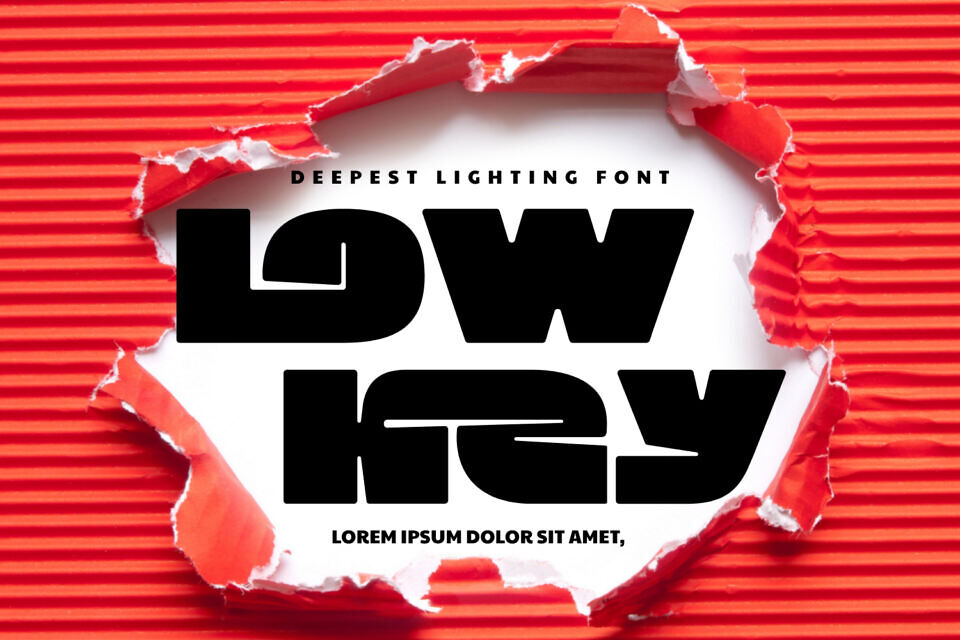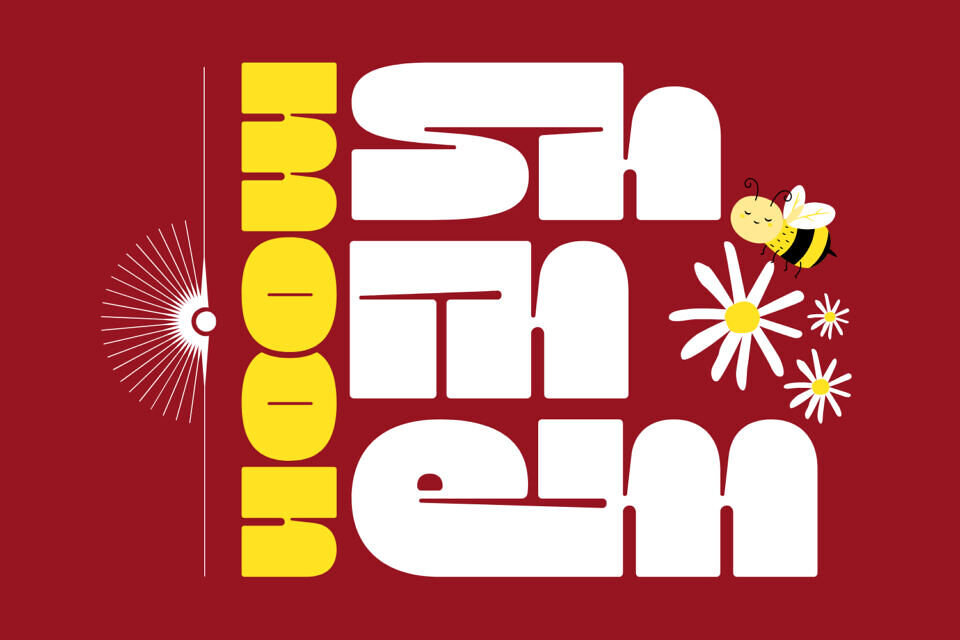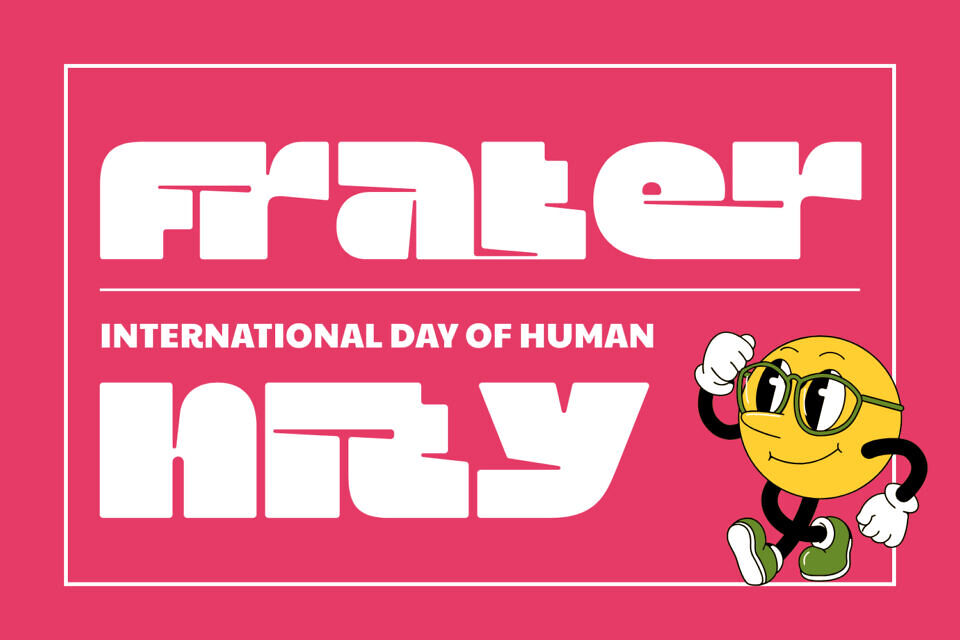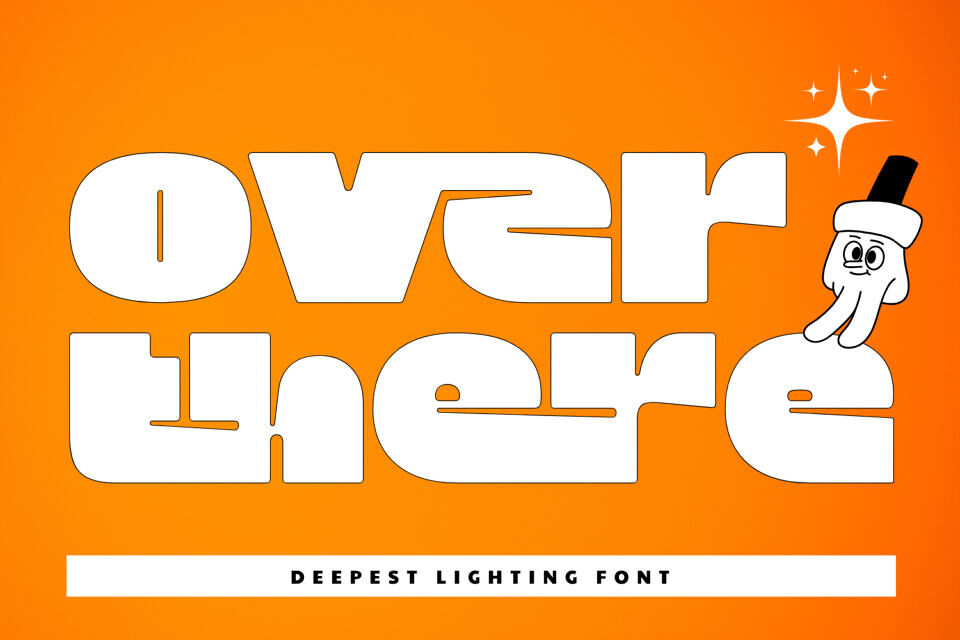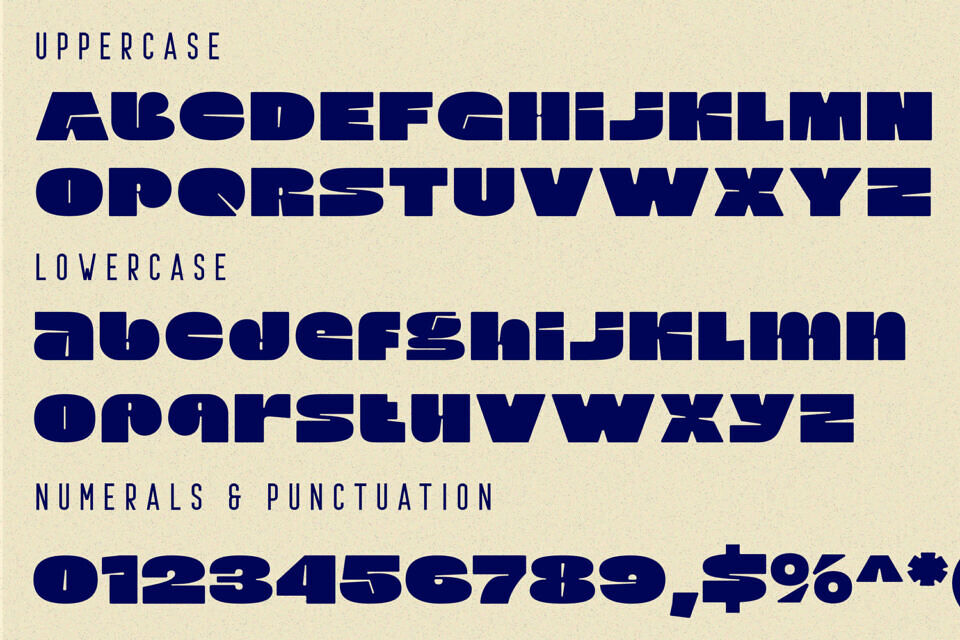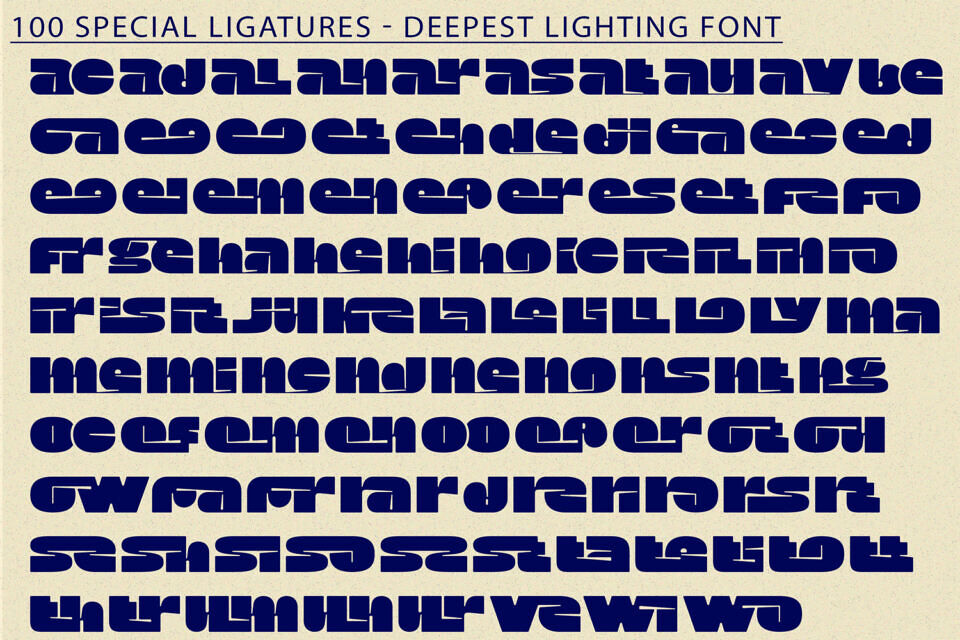
Deepest Lighting Font – Playful Chunky Display Typeface, is a bold and quirky display font that brings an irresistible punch of personality to your designs.
With its ultra-thick, rounded forms and experimental structure, this typeface breaks the grid and lets creativity flow freely. Its chunky silhouettes, exaggerated counters, and funky rhythm are perfect for music posters, editorial titles, fun packaging, or youthful branding.
Whether you’re going retro or just want to stand out, Deepest Lighting is here to play!